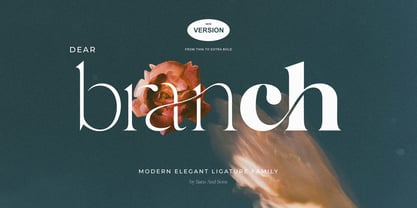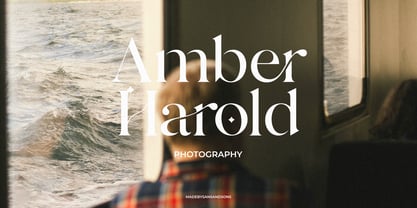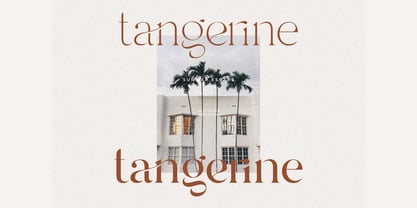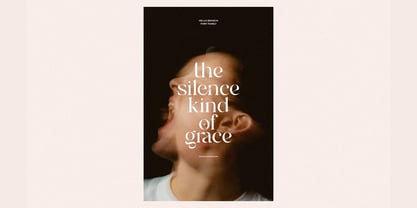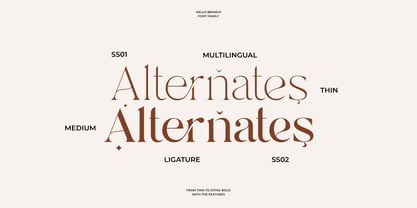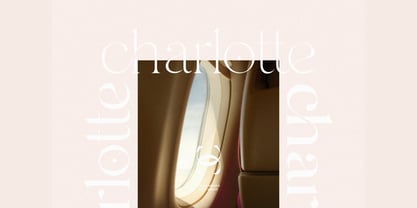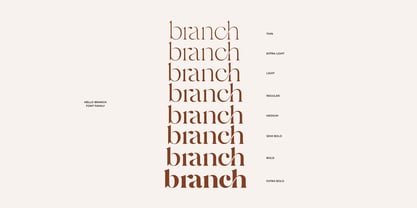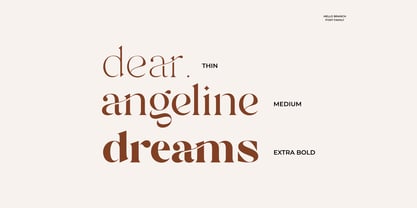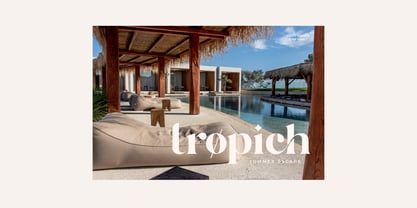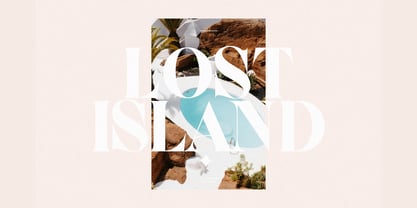
SNS Dear Branch
by Sans And Sons
The SNS Dear Branch Font Family was designed by Angga Suwista and published by Sans And Sons. SNS Dear Branch contains 8 styles and family package options. More about this family
SNS Dear Branch Complete Family – Modern Elegant Font Family by Sans and Sons Meet SNS Dear Branch Complete Family, a modern and elegant font family crafted with timeless versatility. Designed with smooth contrast and graceful shapes, Hello Branch brings sophistication to any design. Perfect for branding, logos, invitations, editorials, packaging, and social media. Now available as a complete font family with 8 styles from Thin to Extra Bold, giving you full creative freedom to build visual harmony across different design needs. Why You’ll Love Hello Branch : - A refined balance between modern minimalism and classic elegance - Ideal for designers who want consistency and flexibility across print and digital projects - Perfect for Cricut, Silhouette, Canva, Procreate, Photoshop, Illustrator, and more
Designers: Angga Suwista
Foundry: Sans And Sons